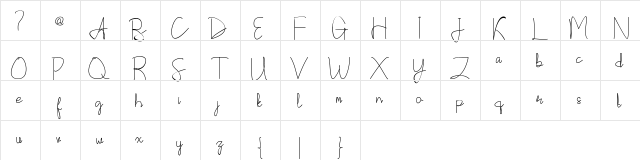
Callatte Regular
Design Context for Callatte Typeface
Callatte is a composed and adaptable typeface that performs quietly and consistently across a wide range of design contexts.